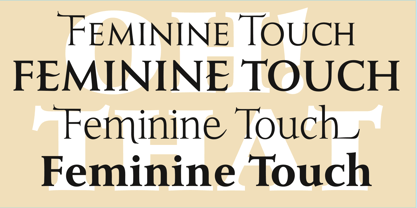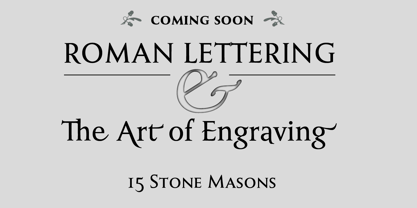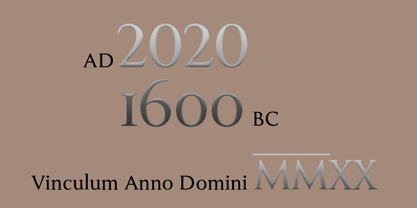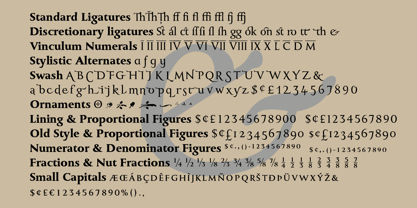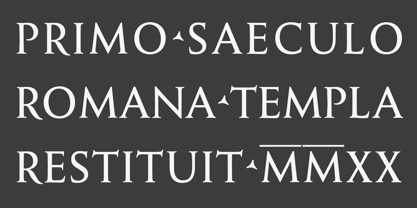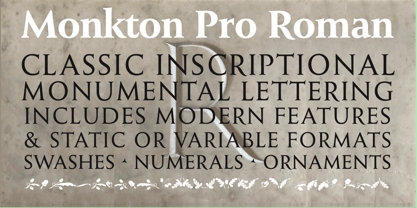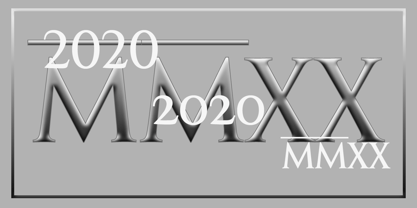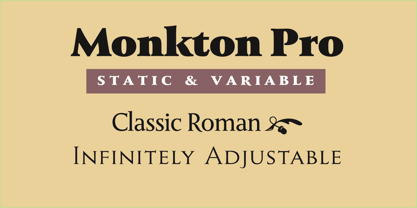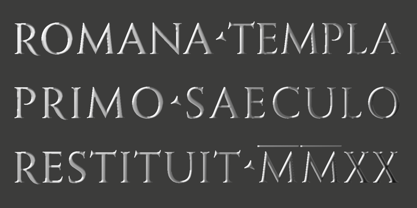
Monkton Pro Roman
A família de fontes Monkton Pro Roman foi desenhada por Adrian Williams e publicada pela Club Type. Monkton Pro Roman contém 10 estilos e opções de pacote familiar. Saiba mais sobre esta família
The inspiration for this typeface family came from my childhood experiences in the village of West Monkton amidst an historic part of the South West of England. The typeface name honours not only the area where the original design was conceived and drawn, but also the people responsible for initially sparking and then fostering my interest in lettering. Studies of the original incised capitals of the Trajan column in Rome were analysed and polished for this modern version. The lower case letter forms and numerals were then created in sympathy, taking their proportions from the incised letters of my local gravestone rubbings that initially sparked my interest in type design. The oak leaf and acorn ornaments enhance the classic uses for this typeface family.
Adrian Williams began his career converting many established metal designs for the new filmsetting devices in 1969; an era when Other Equipment Manufacturers offered their devices, each with its own kind of unit system for the operating program. During the 70s he became involved with converting typefaces to digitized systems and is responsible for many original designs which he redrew, working with each Manufacturer to make fonts for their unique formats. This led to the production of custom made fonts, designs for Corporate Identity and Branding commissions for Renault, Marks & Spencer, Jaguar Cards, Foster's Lager and many more familiar names! CLUB TYPE was founded in 1985 and established to offer a range of exclusive typefaces arising from a demand for quality typefaces on dedicated typesetting systems created prior to the emergence of PostScript. Members received the entire annual design output as fonts meeting their specific machine requirements, with four color specimen books imprinted for Members' distribution. Between 1986 and 1990, nine families were converted from the original drawings which began the Club Type Collection which continues to grow. Advances in technology have made the Club Type Collection widely available for many popular electronic publishing systems' formats. Club Type now offers its products direct to Users and also world-wide through distribution agreements with Font vendors world-wide. Newly released typefaces and special offers update the Collection. From May 1996 Club Type products were being offered on the Internet.